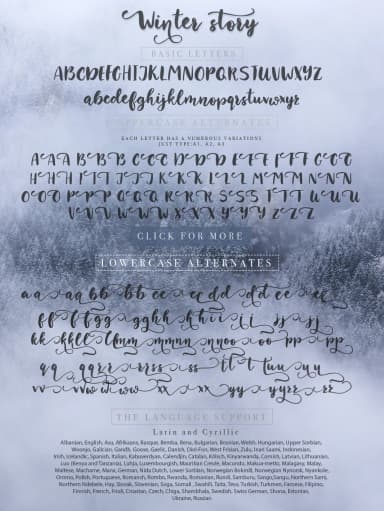
1 / 9About Winter Story Font
Winter Story Font by Red Ink is a lyrical handwritten script with an energetic, flowing rhythm that captures a contemplative seasonal mood. The font's natural letterforms dance across the page with personality, bringing an organic, hand-crafted quality to any composition. Each character feels considered and deliberate, as if written by someone pausing to reflect during the quieter months of the year. The script's bouncy sensibility carries an inherent warmth that makes viewers feel connected to the designer's intention, transforming ordinary text into a storytelling element.
This typeface shines for carefully curated projects that deserve a personal touch: holiday greeting card designs, winter wedding invitations, luxury holiday packaging for artisanal products, and decorative social media graphics for seasonal campaigns. Its bouncy yet refined character works equally well for rustic stationery collections, festive event signage, or vintage-inspired label designs that convey warmth and intentionality. The script's readable letterforms make it accessible for both display and text applications, whether you're creating a single design or an entire branded collection across products. Its consistent baseline and even spacing ensure professional results across different mediums and sizes, from digital assets to print.
Winter Story Font is a script font that shines as a display or heading face. Pair it with a clean sans-serif or serif font for body text β the contrast creates a clear hierarchy while the two styles stay balanced and easy to read.
Winter Story Font